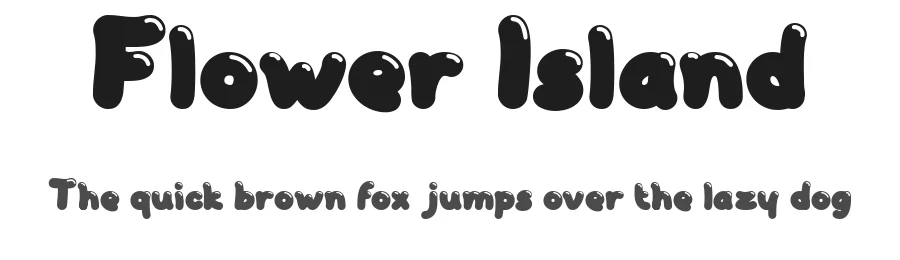
About Buggy Font
Buggy is a decorative font designed by Don Marciano. It includes 410 glyphs, a regular weight, OTF (CFF) format, and 270 languages. Buggy is free to download; check the license details on this page before commercial use. Decorative fonts like Buggy work best for logos, posters, packaging, and standout headlines.
Buggy Font is a decorative font that shines as a display or heading face. Pair it with a clean sans-serif or serif font for body text β the contrast creates a clear hierarchy while the two styles stay balanced and easy to read.
Buggy Font
by Don Marciano